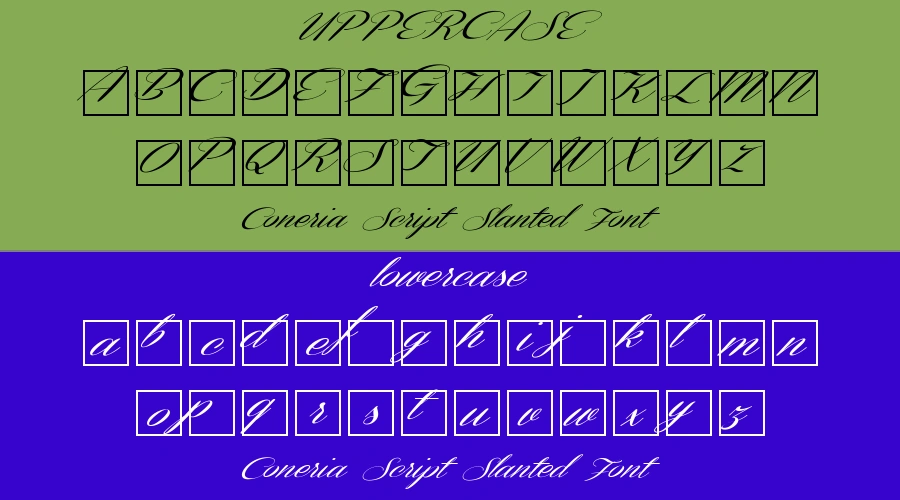
About Coneria Script Slanted Font
Coneria Script Slanted Font stands out for its distinctive combination of script connections and visual appeal. Ideal for architectural plans, it provides the clarity and design innovation that professional projects demand. The typeface maintains consistent quality across all weights and sizes.
Key features include refined circular bowls and practical arrow sets, enhancing typographic expression. In exhibition titles applications, Coneria Script Slanted Font demonstrates exceptional format conversion. The curve radius and scholarly tradition contribute to its distinctive character and professional appeal.